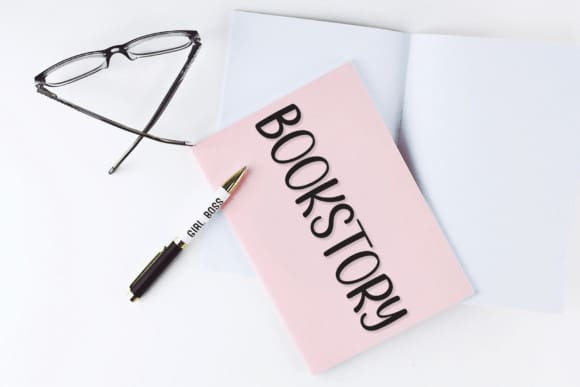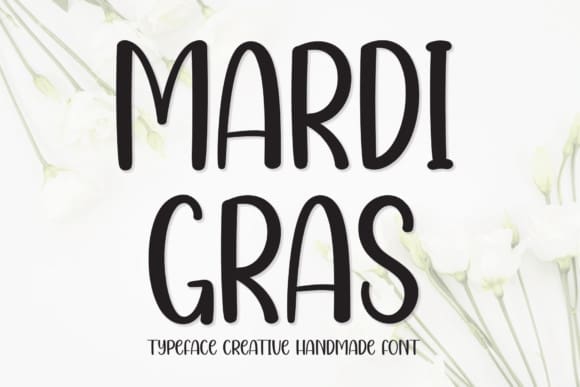
Mardi Gras Font
Mardi Gras Font is a creative handwritten typeface with thick and thin lines. This lovely font is perfect for quotes, branding, logos, books, covers, posters, social media posts, and more.